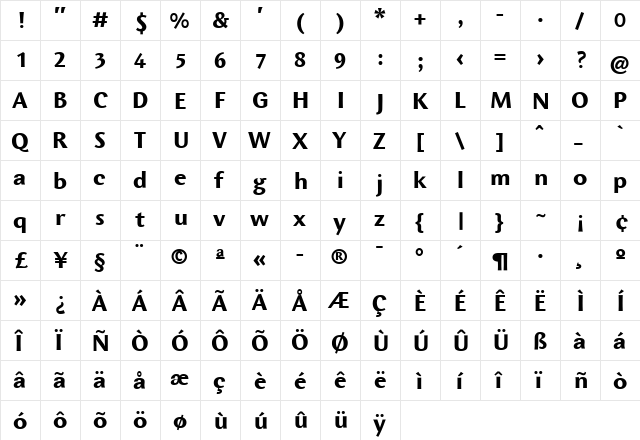
Wunderlich Bold
| Foundry | Copr. Martin Wunderlich, FontShop International |
Design Context for Wunderlich Typeface
Wunderlich is a composed and adaptable typeface that performs quietly and consistently across a wide range of design contexts. Its bold stroke weight gives it real presence on the page.